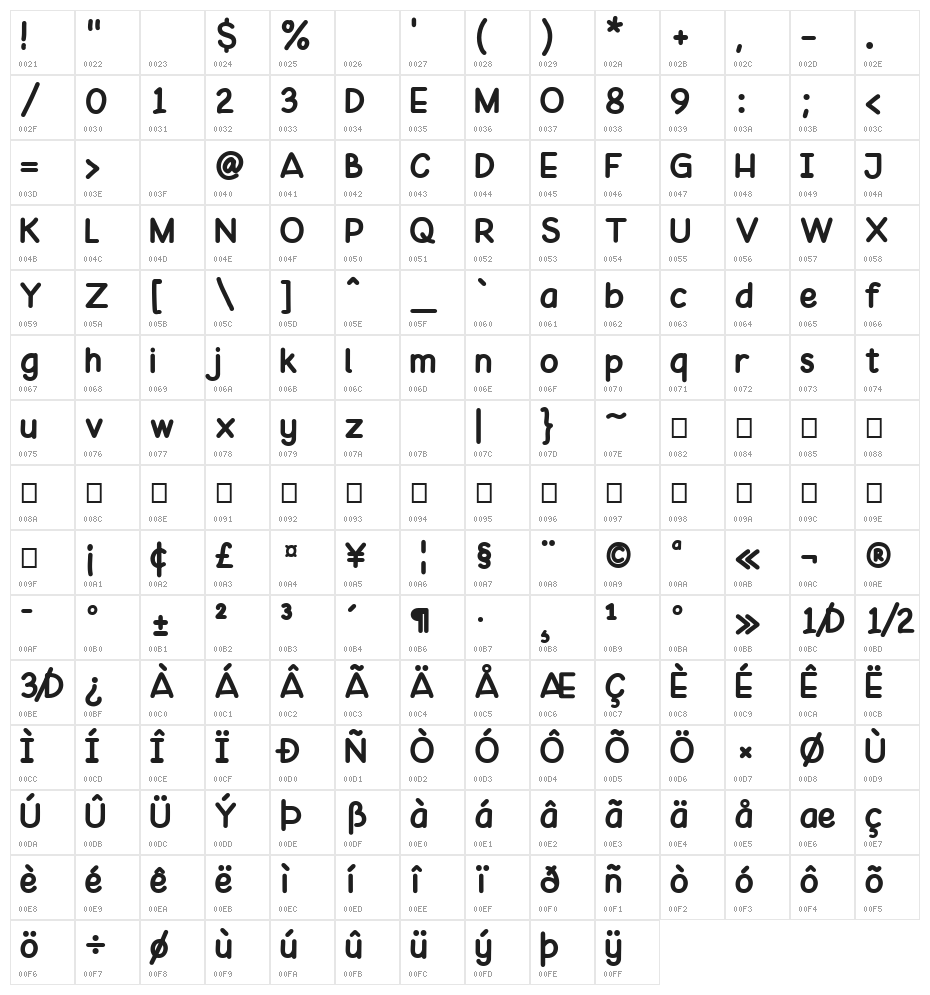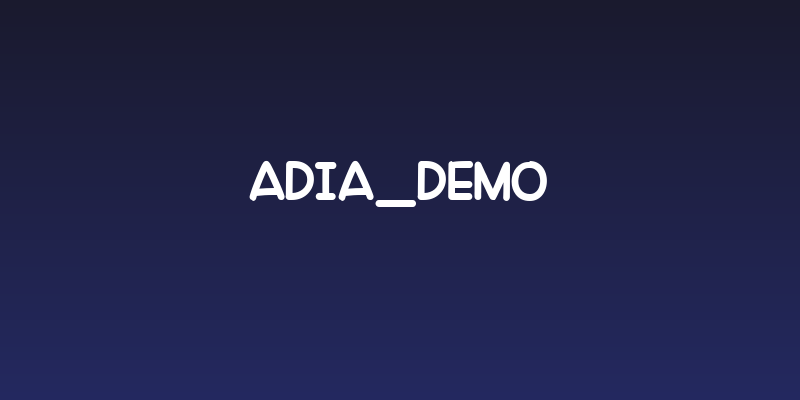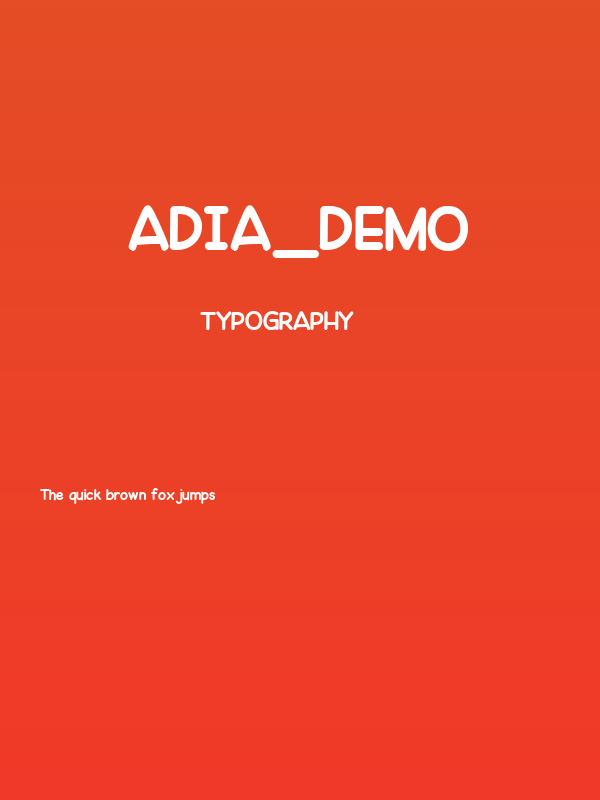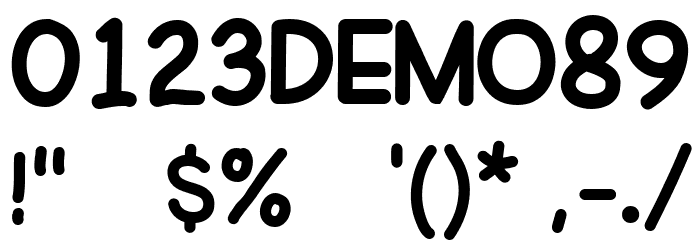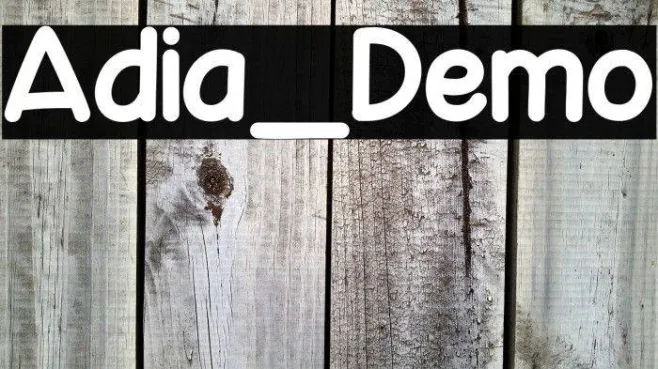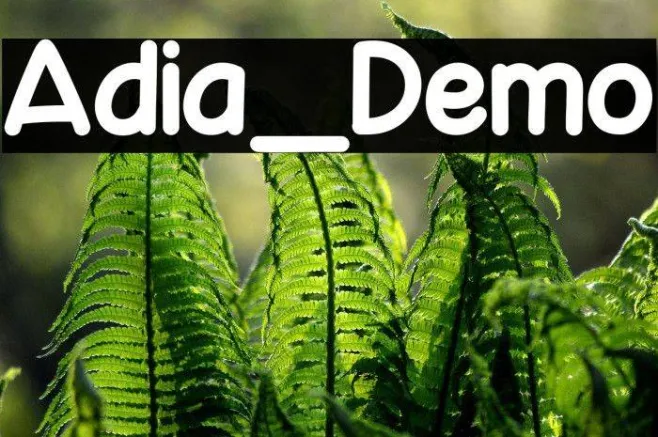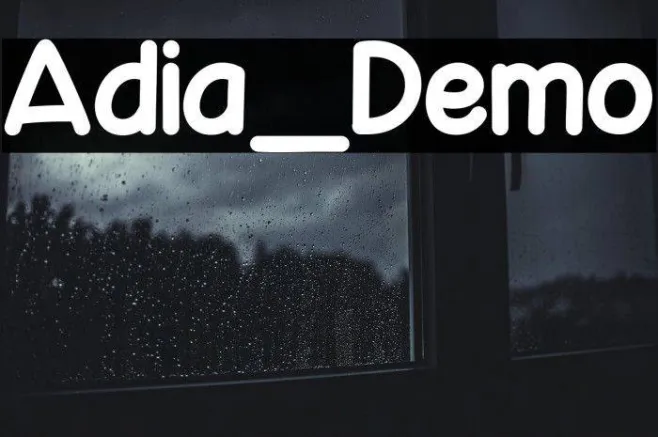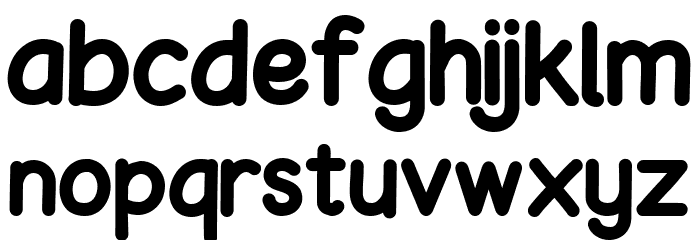
Adia_Demo Font
Adia_Demo Description
This font features a playful and rounded style, characterized by its bold and smooth curves. The letters are evenly spaced with a consistent stroke width, giving it a friendly and approachable appearance. The uppercase and lowercase letters maintain a uniform height, enhancing readability. The numbers and special characters follow the same rounded design, making the font versatile for various uses. Its simplicity and boldness make it suitable for both digital and print media, ensuring clarity and impact.
| Proposed Projects | Ideal for children's books, playful branding, casual invitations, and social media graphics. |